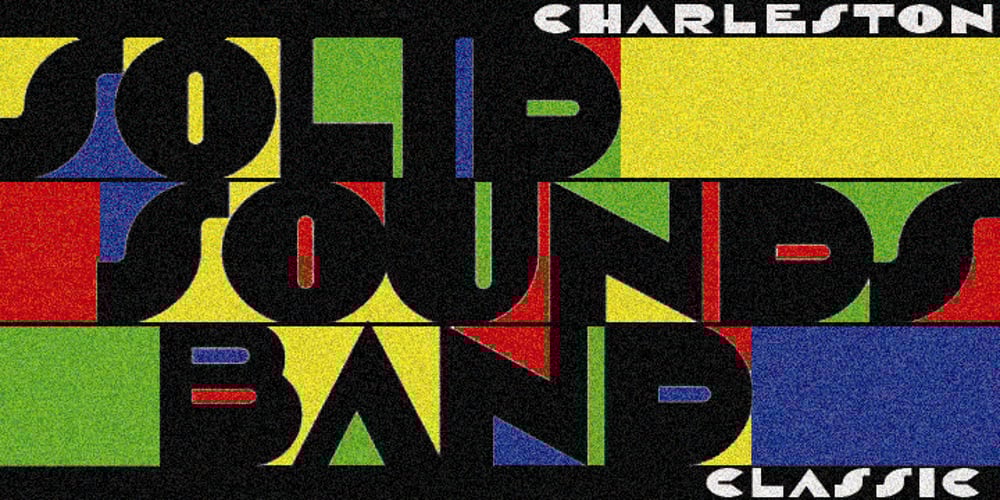
Saxo Font Family was designed by Juan A. Lavalle and published by Eurotypo. Saxo contains 4 styles and family package options. The Saxo family is based on the typefaces of the twenties and thirties, where through the Art Deco and Futurism were built the foundations of the modern movement. Designed from basic geometric shapes (triangle, circle and square). This font transmits his solid character and modern spirit, through 470 glyphs, including Opentype features like ligatures, stylistic alternates and borders based on the geometry of the typeface. All Saxo fonts come with CE languages support.